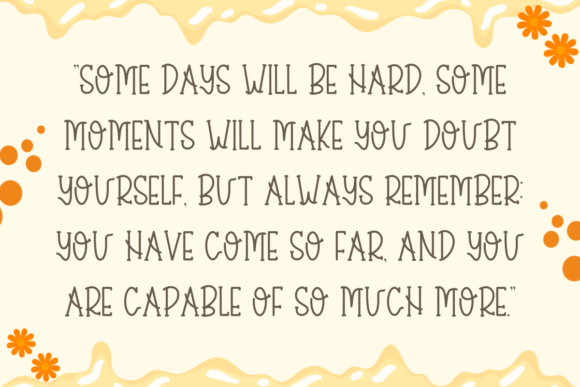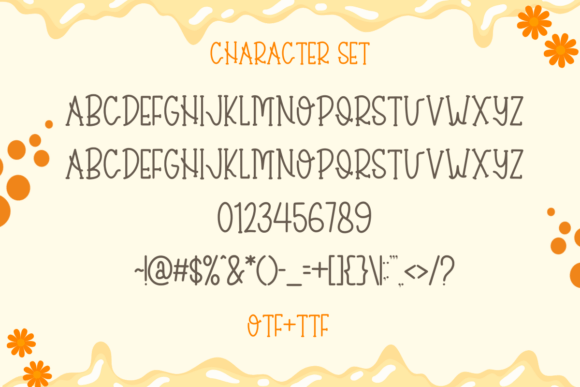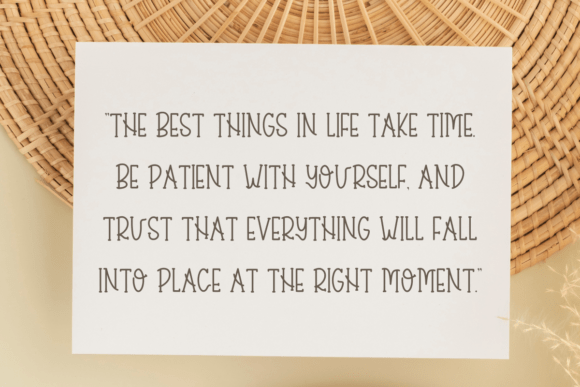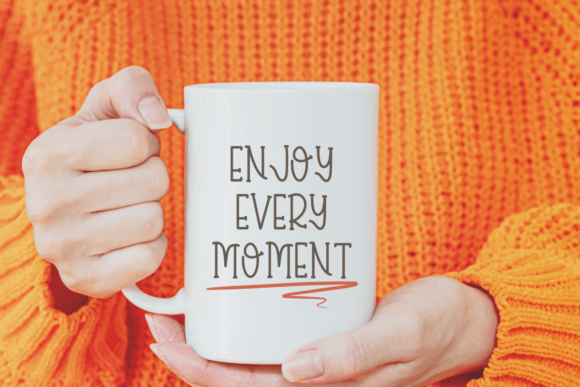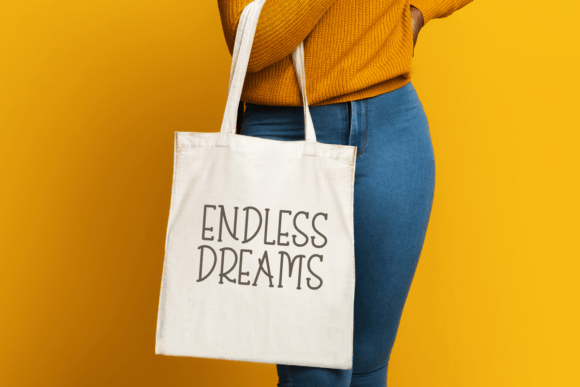
Introducing Happy Orange: The Perfect Fun and Playful Handwritten Font for Crafters and Designers
Are you a crafter, designer, or maker looking for a font that can add a touch of fun and playfulness to your projects? Look no further than Happy Orange, a delightful handwritten font that’s perfect for a wide range of creative endeavors. In this article, we’ll explore the features and benefits of Happy Orange, and show you how it can elevate your crafts, planners, KDP, stickers, greeting cards, and more.
What is Happy Orange?
Happy Orange is a fun and playful handwritten font that’s designed to bring a smile to your face. Its cute and friendly style makes it an ideal choice for crafters, designers, and makers who want to add a personal touch to their projects. Whether you’re creating crafts, planners, or DIY projects, Happy Orange is the perfect font to use.
Features of Happy Orange
- Handwritten style: Happy Orange is a handwritten font that’s designed to look like it was written with a pen or pencil. This gives it a personal and friendly feel that’s perfect for crafts and DIY projects.
- Fun and playful: Happy Orange is a fun and playful font that’s sure to bring a smile to your face. Its playful style makes it perfect for projects that require a lighthearted touch.
- Cute and friendly: Happy Orange has a cute and friendly style that’s perfect for projects that require a personal touch. Its friendly style makes it ideal for greeting cards, stickers, and other projects that require a warm and welcoming feel.
- Versatile: Happy Orange is a versatile font that can be used for a wide range of projects, including crafts, planners, KDP, stickers, greeting cards, and more.
Uses for Happy Orange
Happy Orange is a versatile font that can be used for a wide range of projects, including:
- Crafts: Happy Orange is perfect for crafters who want to add a personal touch to their projects. Use it to create custom signs, decorations, and other craft projects.
- Planners: Happy Orange is a great font to use for planners, journals, and other paper crafts. Its friendly style makes it perfect for creating custom planner pages and inserts.
- KDP: Happy Orange is a great font to use for KDP (Kindle Direct Publishing) projects, including book covers, titles, and interior design.
- Stickers: Happy Orange is perfect for creating custom stickers, labels, and other adhesive projects.
- Greeting cards: Happy Orange is a great font to use for greeting cards, invitations, and other paper crafts that require a personal touch.
- Cricut: Happy Orange is compatible with Cricut machines, making it perfect for cutting vinyl, iron-on, and other materials.
- Sublimation: Happy Orange is also compatible with sublimation printers, making it perfect for creating custom mugs, t-shirts, and other sublimation projects.
Benefits of Using Happy Orange
There are many benefits to using Happy Orange for your craft and design projects. Some of the benefits include:
- Easy to read: Happy Orange is an easy-to-read font that’s perfect for projects that require a clear and legible text.
- Fun and playful: Happy Orange adds a fun and playful touch to your projects, making them more engaging and enjoyable.
- Cute and friendly: Happy Orange has a cute and friendly style that’s perfect for projects that require a personal touch.
- Versatile: Happy Orange is a versatile font that can be used for a wide range of projects, making it a great addition to your font library.
Tips for Using Happy Orange
Here are some tips for using Happy Orange for your craft and design projects:
- Use it for titles and headings: Happy Orange is perfect for titles and headings, where its playful style can really shine.
- Mix it with other fonts: Happy Orange can be paired with other fonts to create a unique and interesting look.
- Experiment with colors: Happy Orange looks great in a variety of colors, so don’t be afraid to experiment and find the perfect color for your project.
- Use it for DIY projects: Happy Orange is perfect for DIY projects, such as crafts, decorations, and other handmade items.
In conclusion, Happy Orange is a fun and playful handwritten font that’s perfect for crafters, designers, and makers. Its cute and friendly style makes it ideal for a wide range of projects, including crafts, planners, KDP, stickers, greeting cards, and more. With its versatility, ease of use, and playful style, Happy Orange is a great addition to any font library.